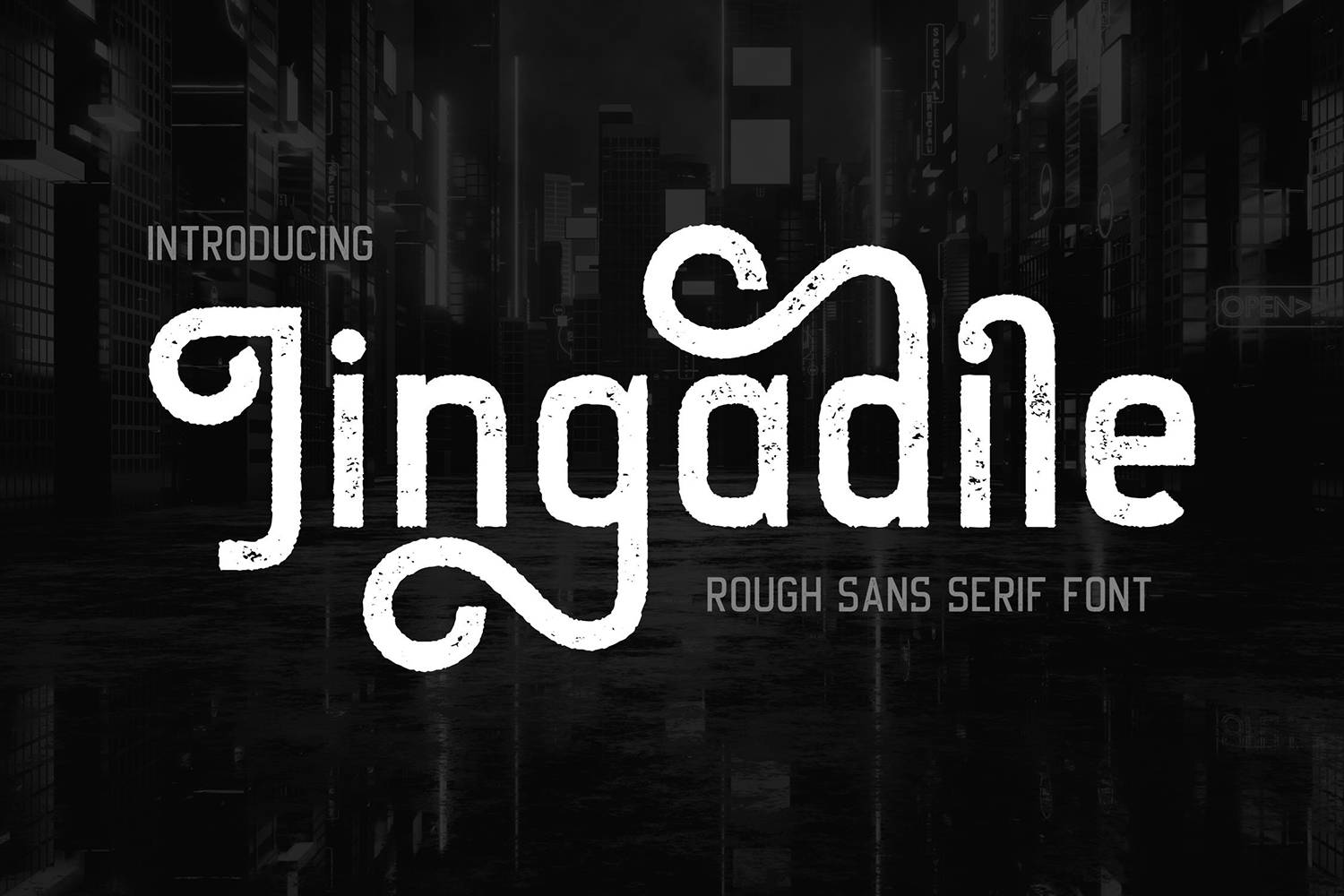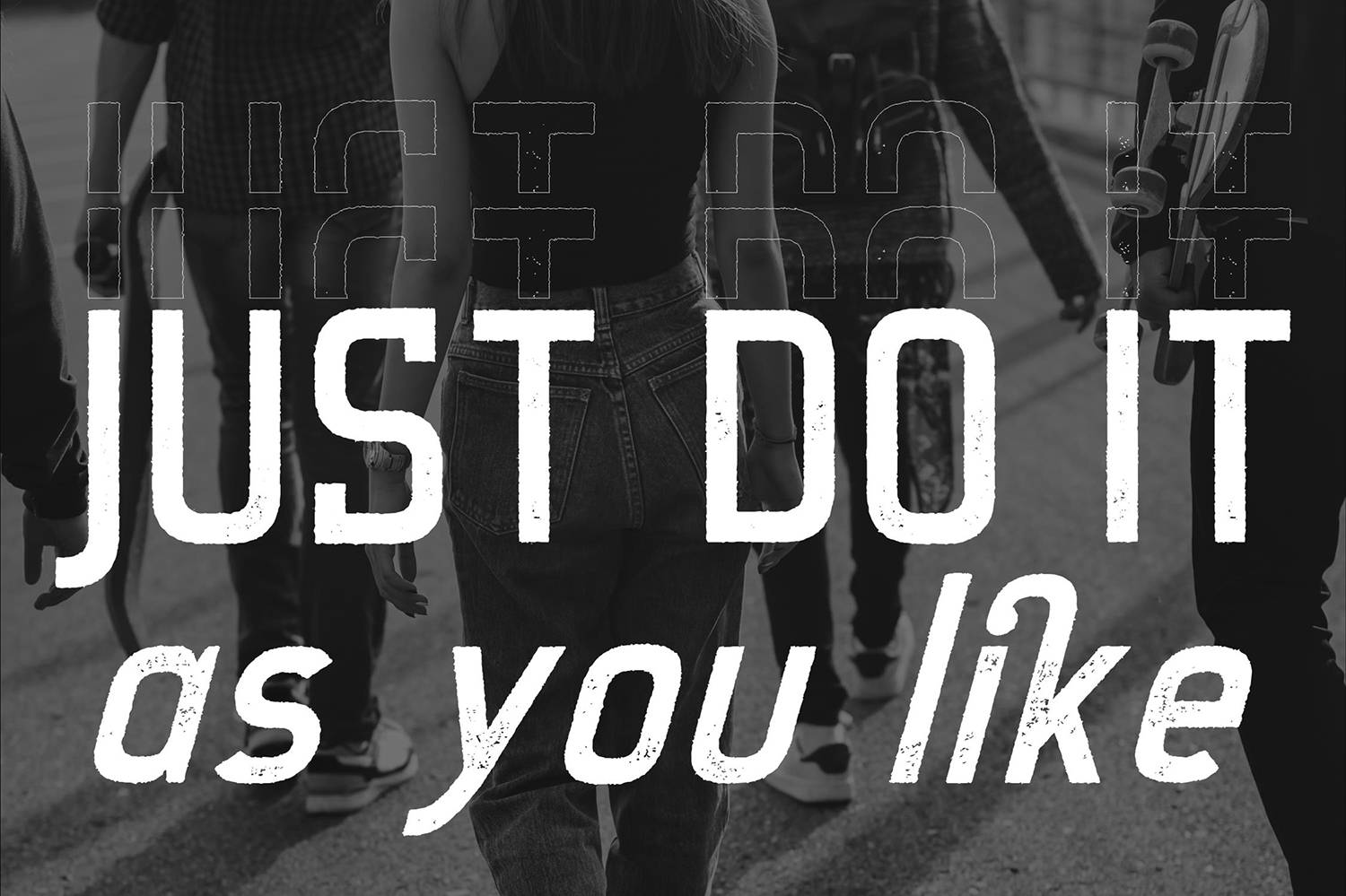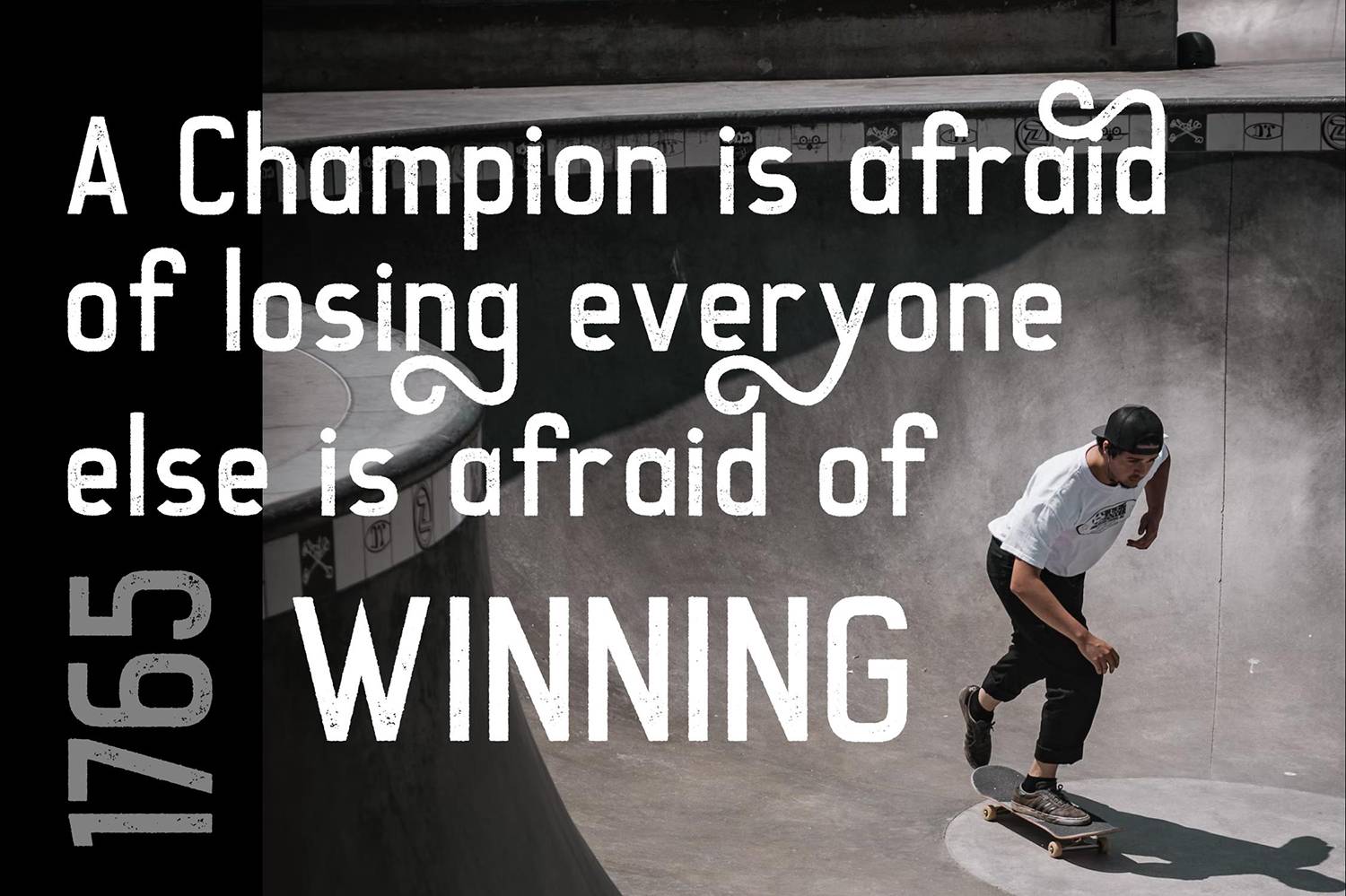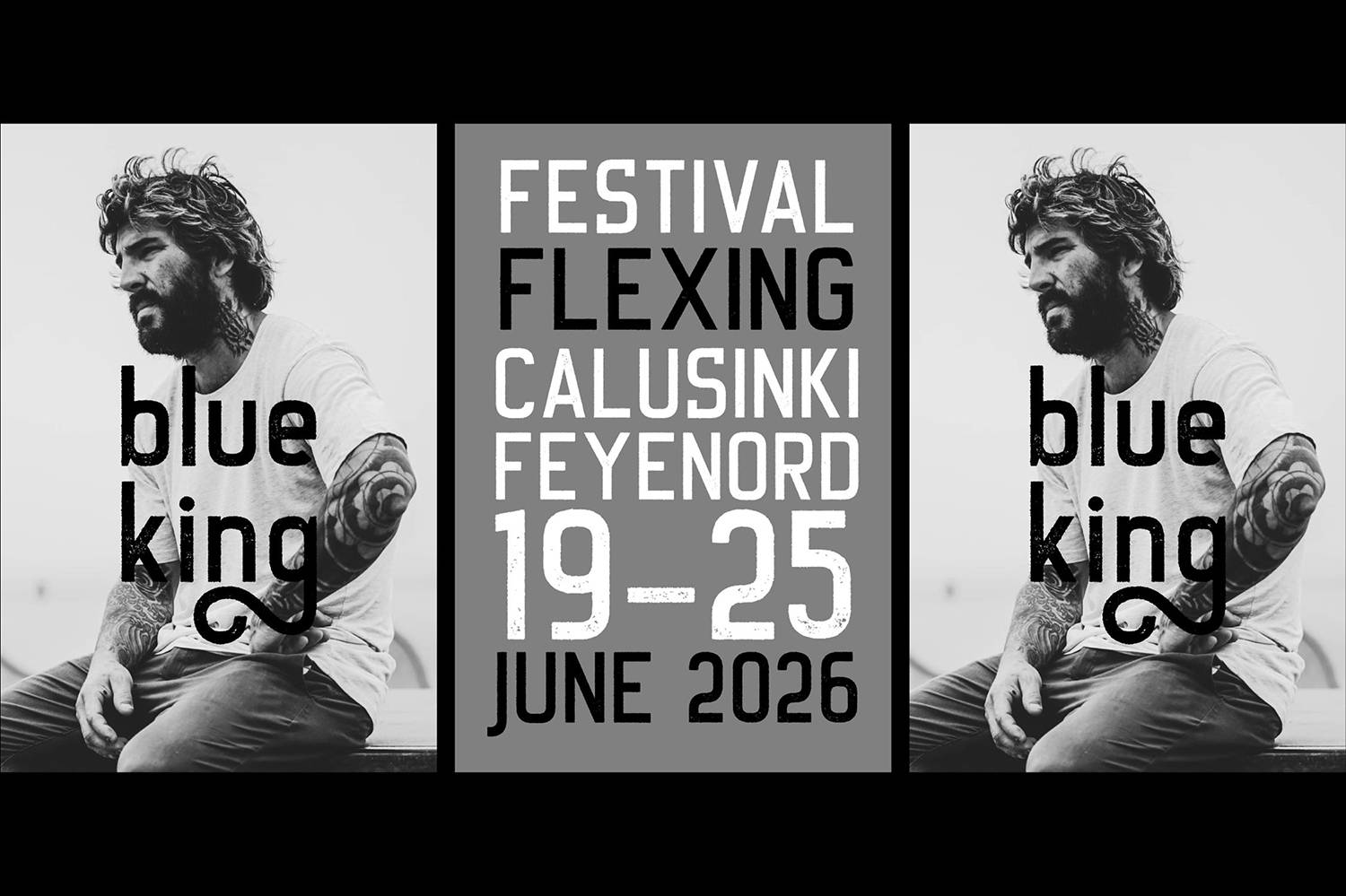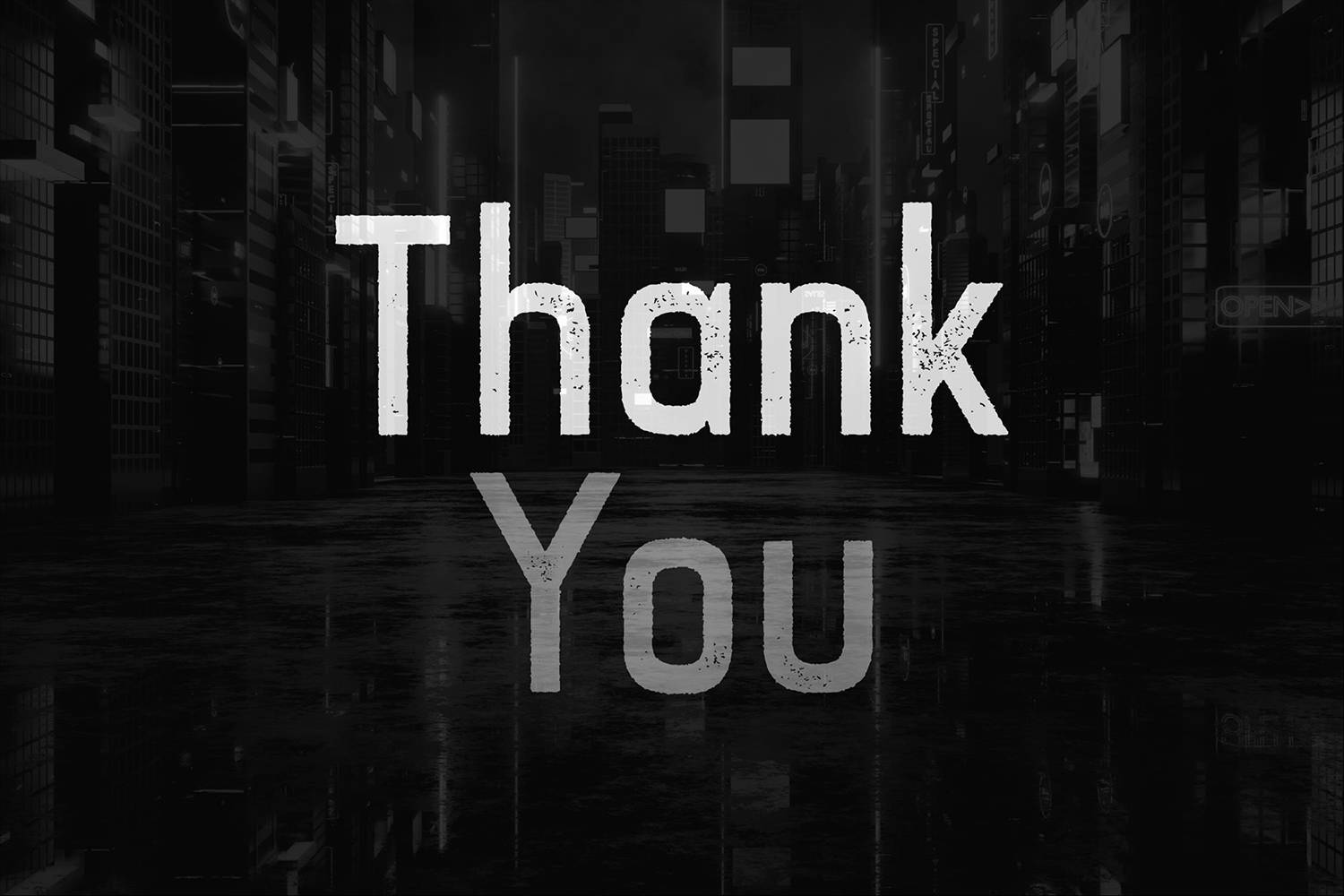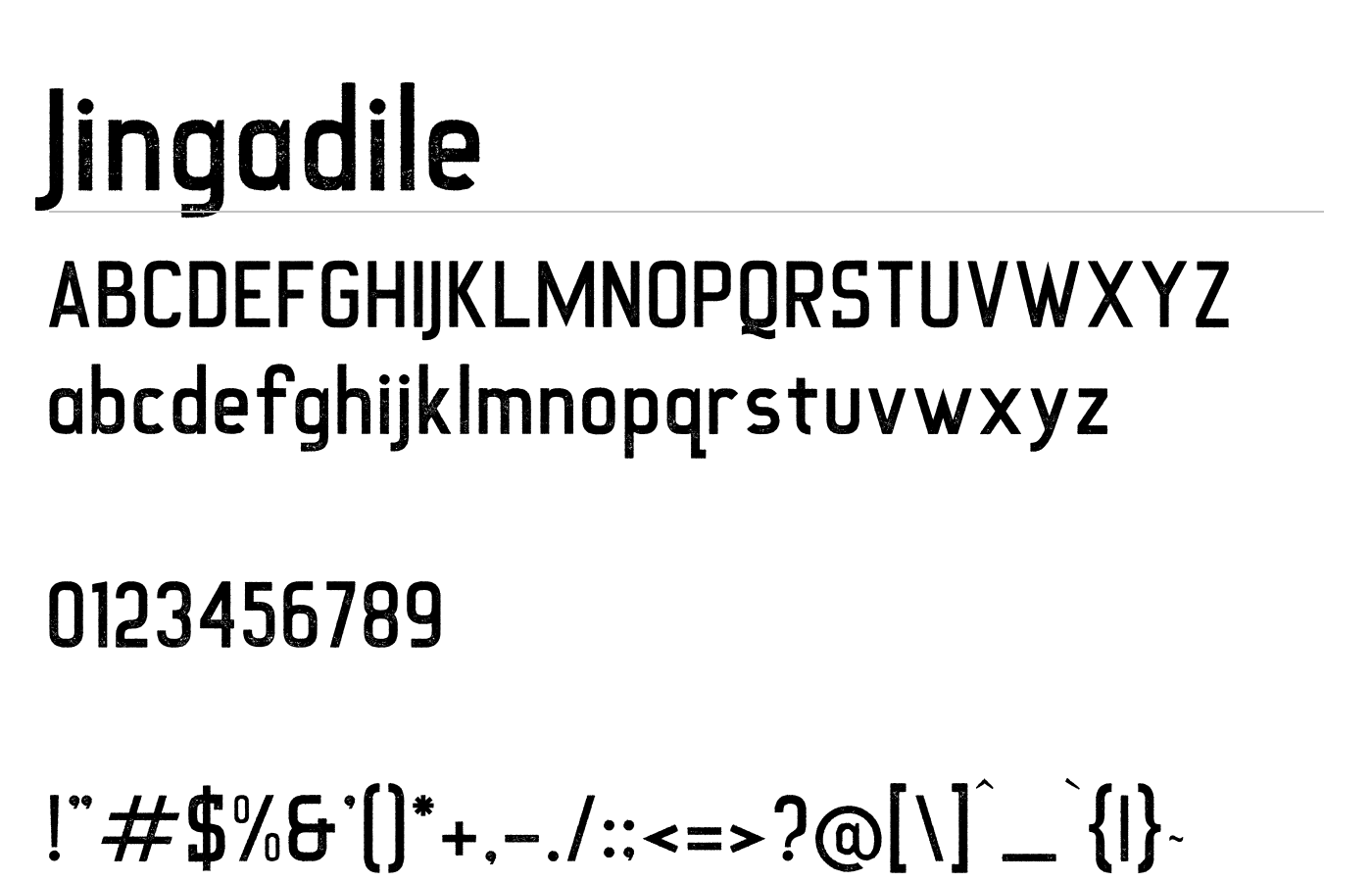
Jingadile is a condensed sans-serif font with a distinctive vintage, industrial feel, featuring tall, narrow letterforms and subtle irregularities that add character and warmth. Its clean, straightforward shapes with slight rough textures make it ideal for impactful headlines, logos, and branding projects that seek a bold yet approachable look. This font works well in designs that want to convey strength and authenticity without sacrificing readability or style.
Jingadile Font
About Jingadile Font